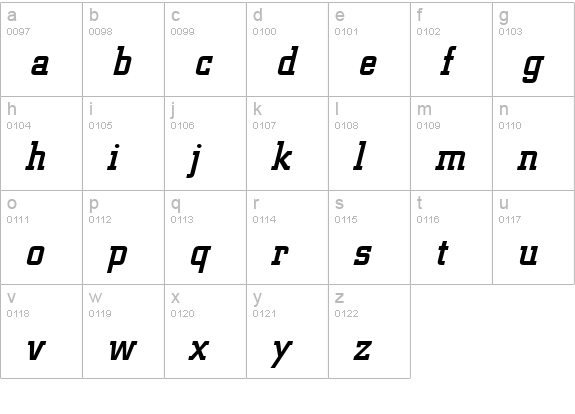
City MediumItalic Font Details
City MediumItalic font is a versatile and modern typeface that exudes sophistication and style. With its sleek, italic design, this font is perfect for conveying a sense of elegance and professionalism in your projects. The City MediumItalic font is ideal for use in branding, editorial design, and more, adding a touch of class to any design. What sets City MediumItalic font apart is not only its aesthetic appeal but also its accessibility. This font is available for free download at FontsMarket.com, making it easy for designers and creatives to incorporate it into their work without any cost. Whether you're working on a print project, digital design, or web development, City MediumItalic font will elevate your designs with its sleek and refined look. Embrace the sophistication of City MediumItalic font and elevate your designs to the next level. Download it for free today at FontsMarket.com and bring a touch of elegance to your projects.